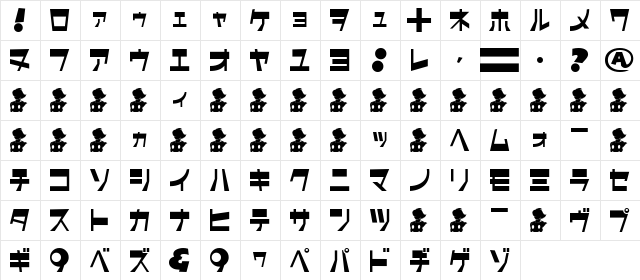
I2CyborgClassic Regular Font Preview
I2CyborgClassic Regular
I2CyborgClassic Regular Font Details
Design Context for I2CyborgClassic Typeface
I2CyborgClassic has the warm character of retro typography — evoking diners, record sleeves, and the golden age of print advertising.